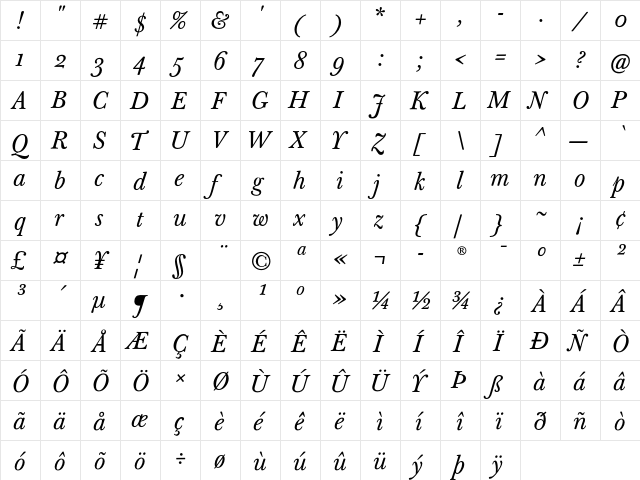
Baskerville Ten Pro Italic
| Foundry | Frantisek Storm |
| Designer | Frantisek Storm |
Design Context for Baskerville Ten Pro Typeface
Baskerville Ten Pro offers clean, dependable letterforms without strong stylistic allegiance, making it a practical choice for designers who need flexibility. The dynamic lean of this cut emphasises speed and emphasis in any layout.
Pro Tip: Use Baskerville Ten Pro for emphasis, pull quotes, and subheadings where its slanted energy can add rhythm to the layout.